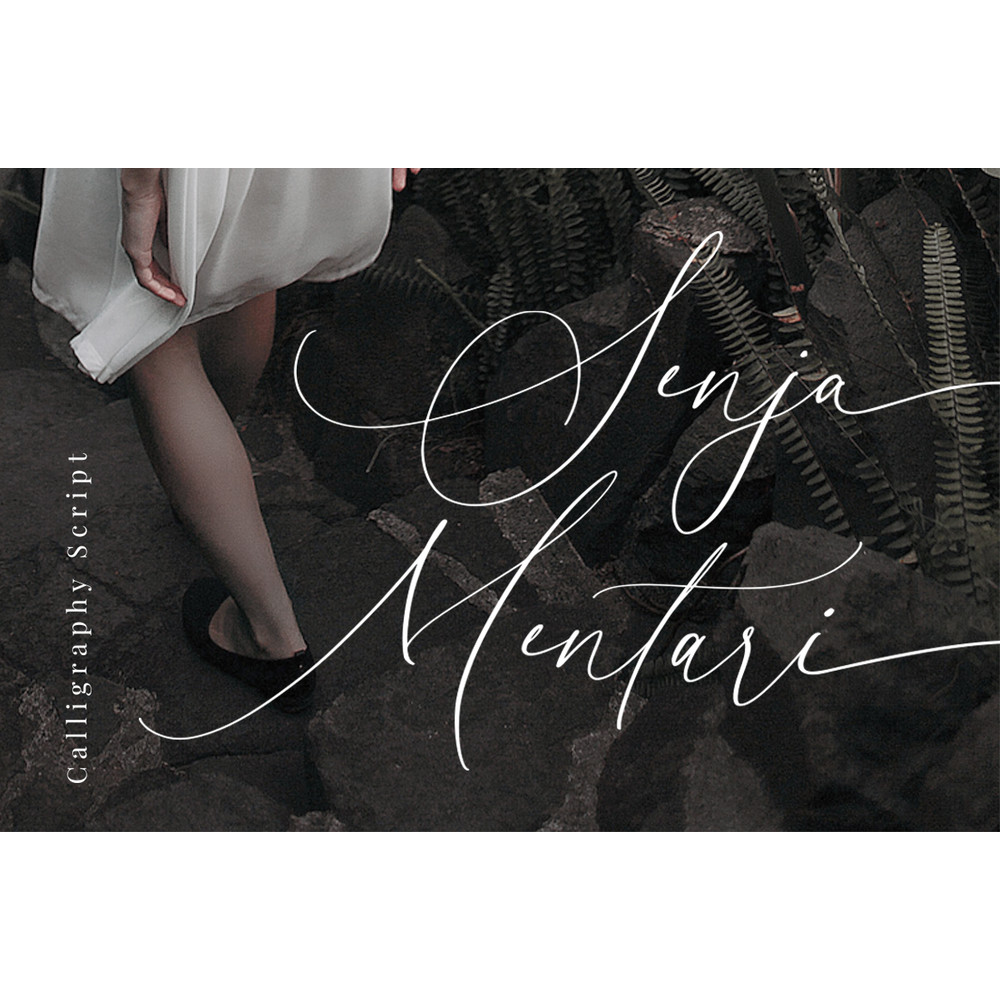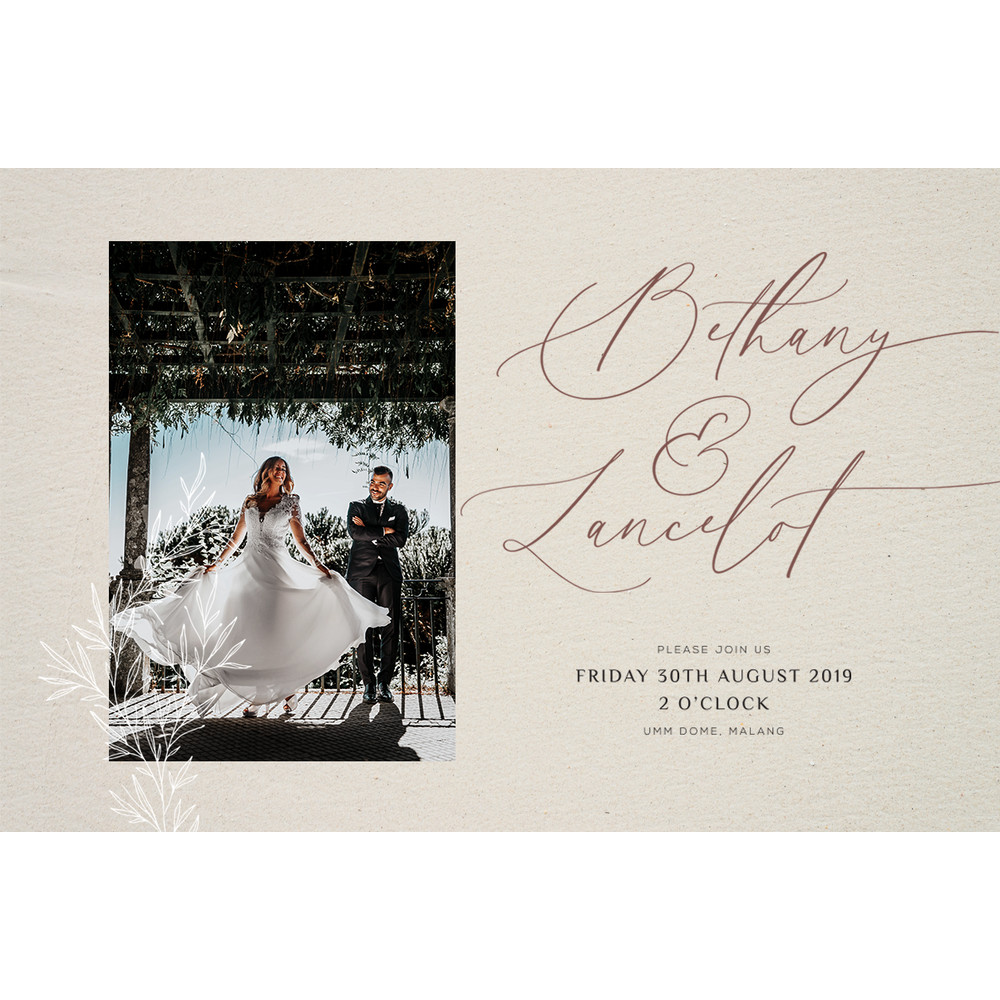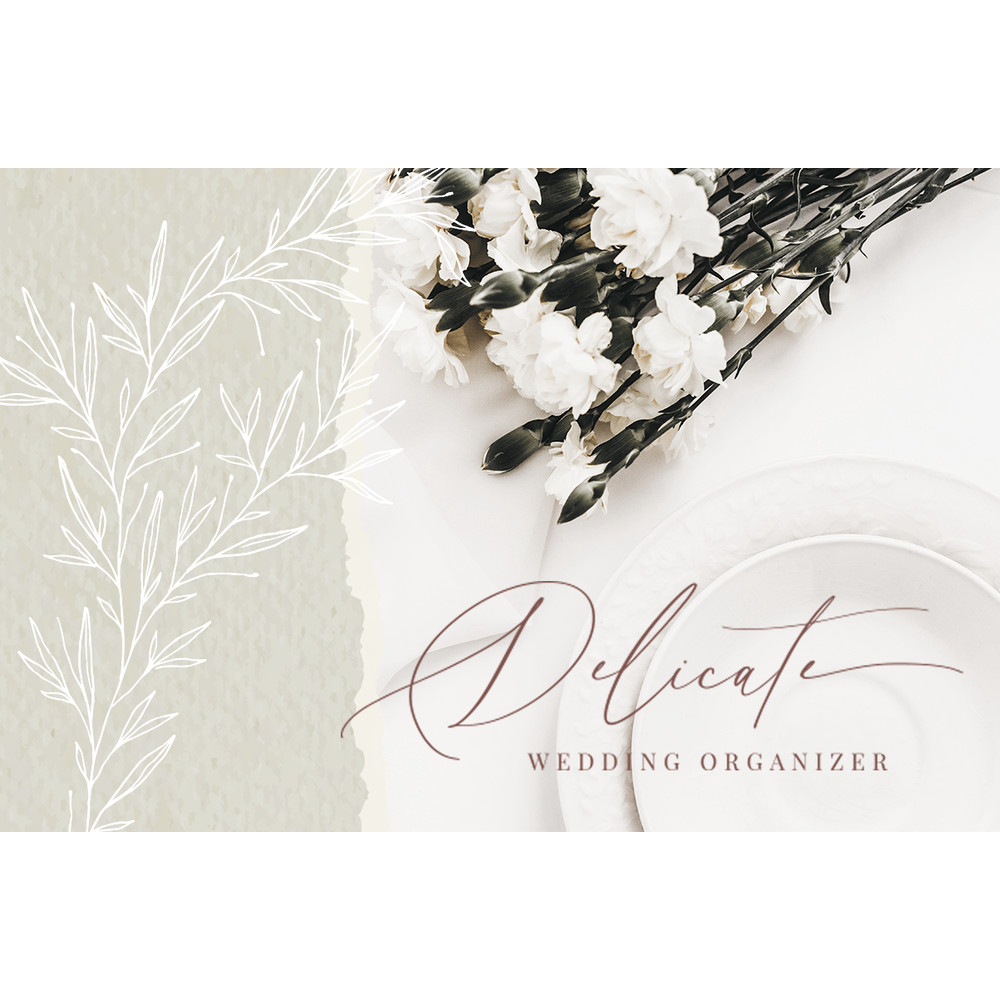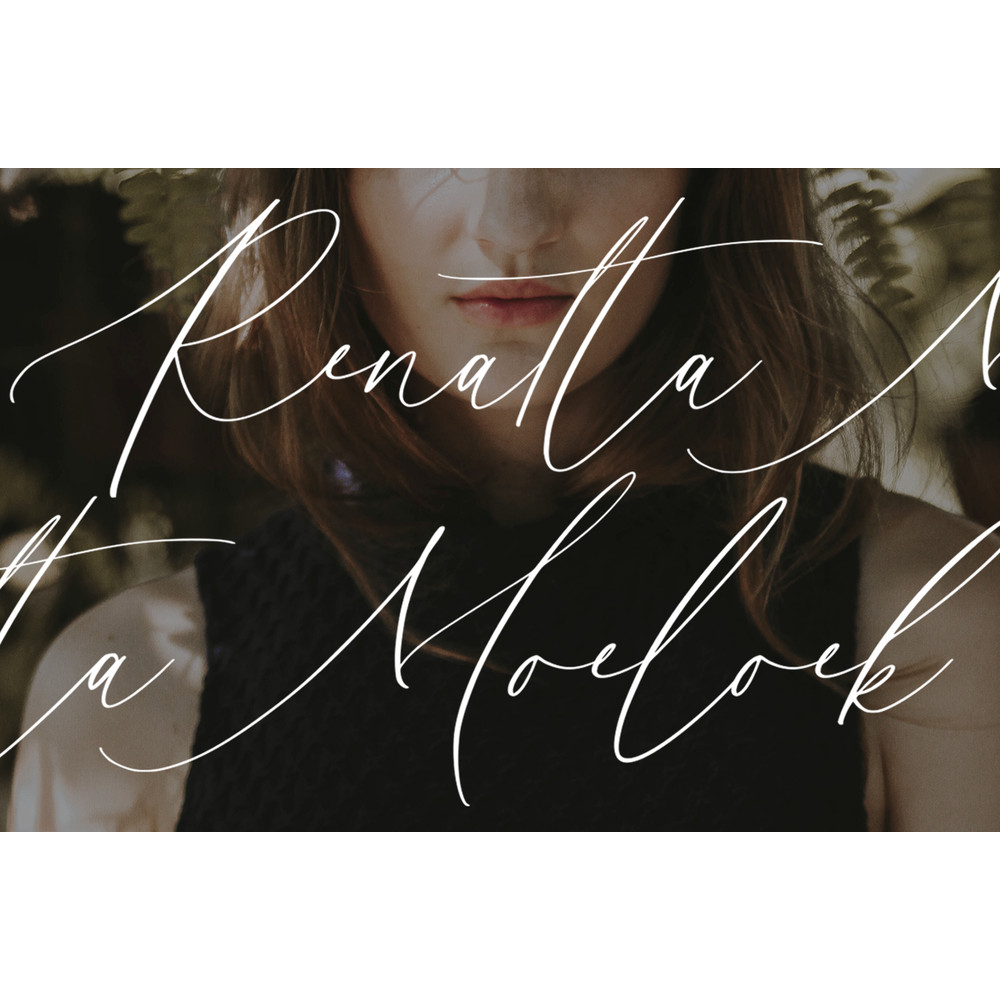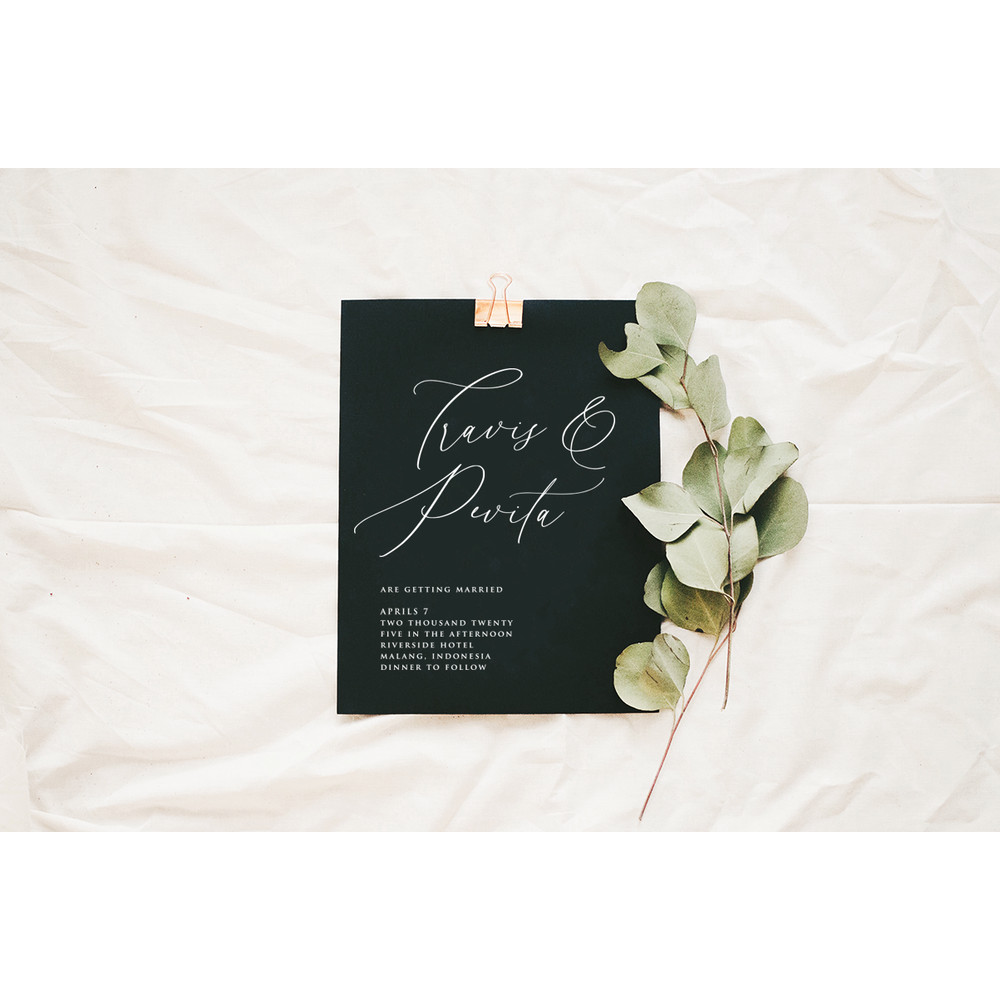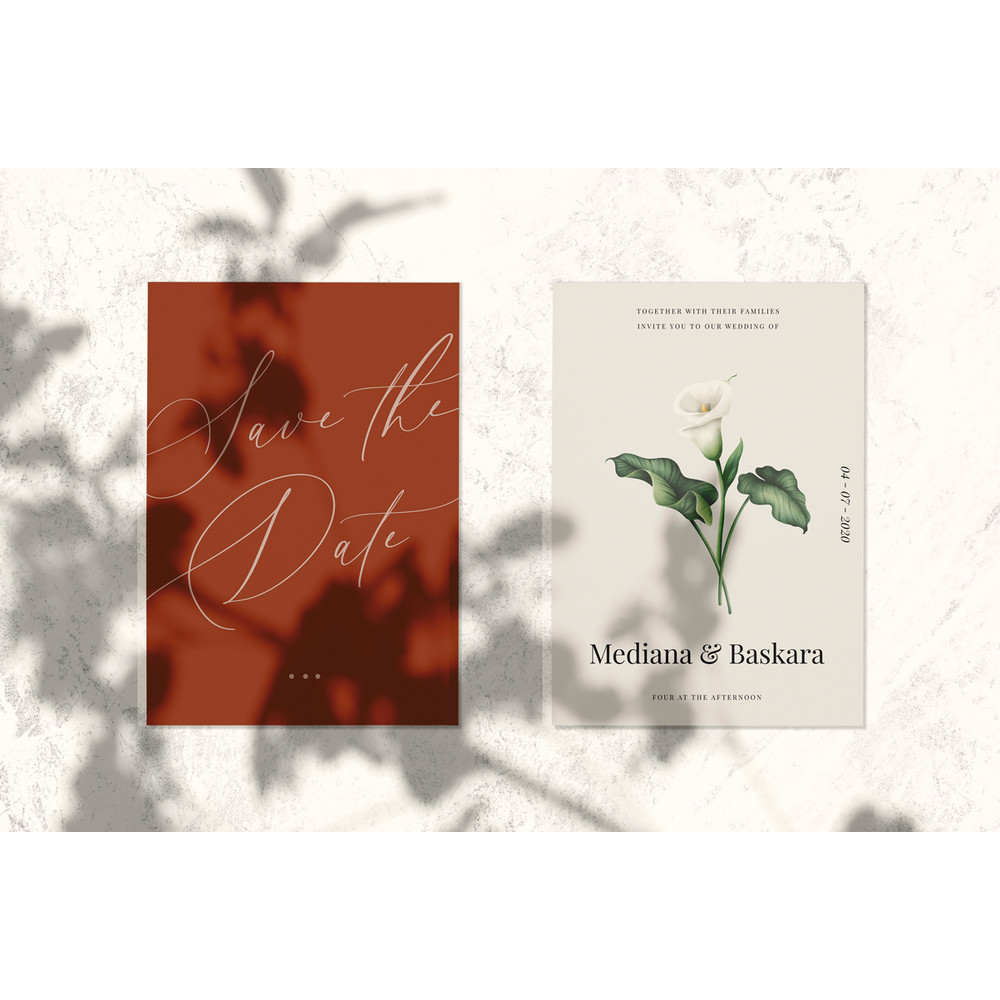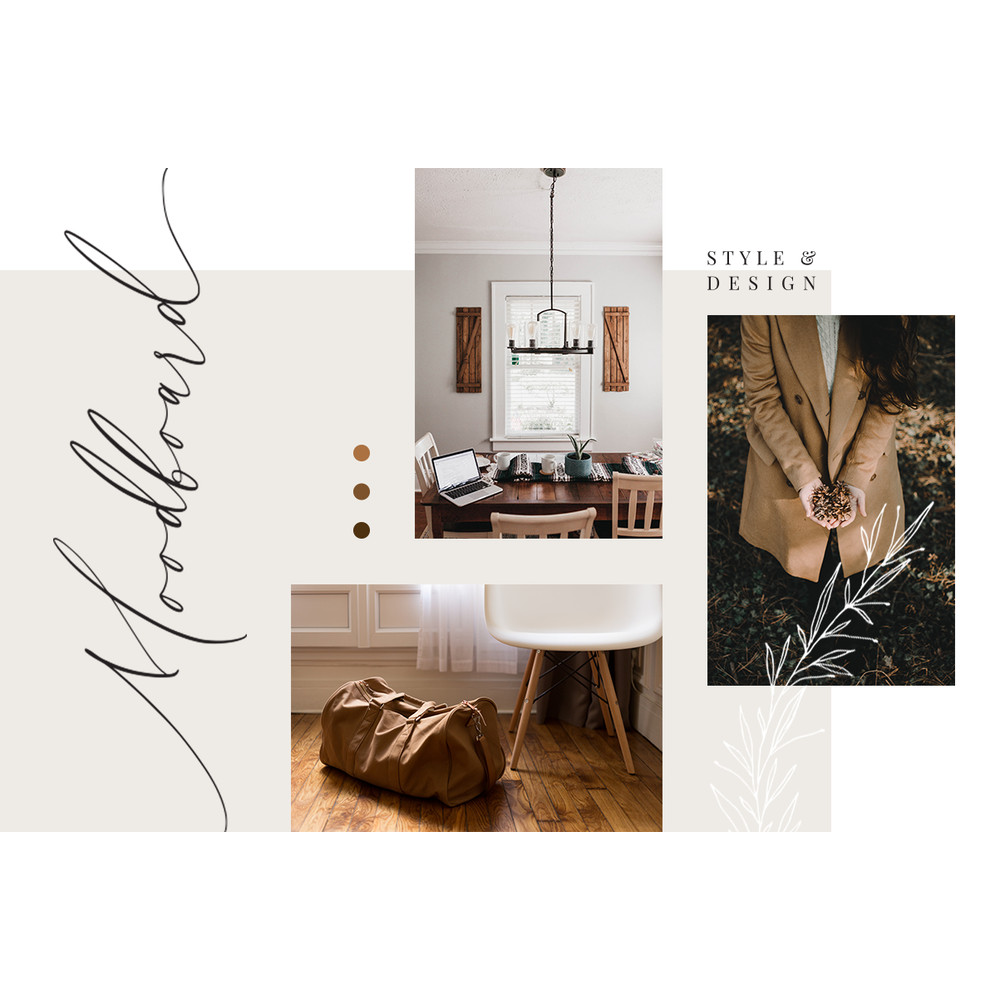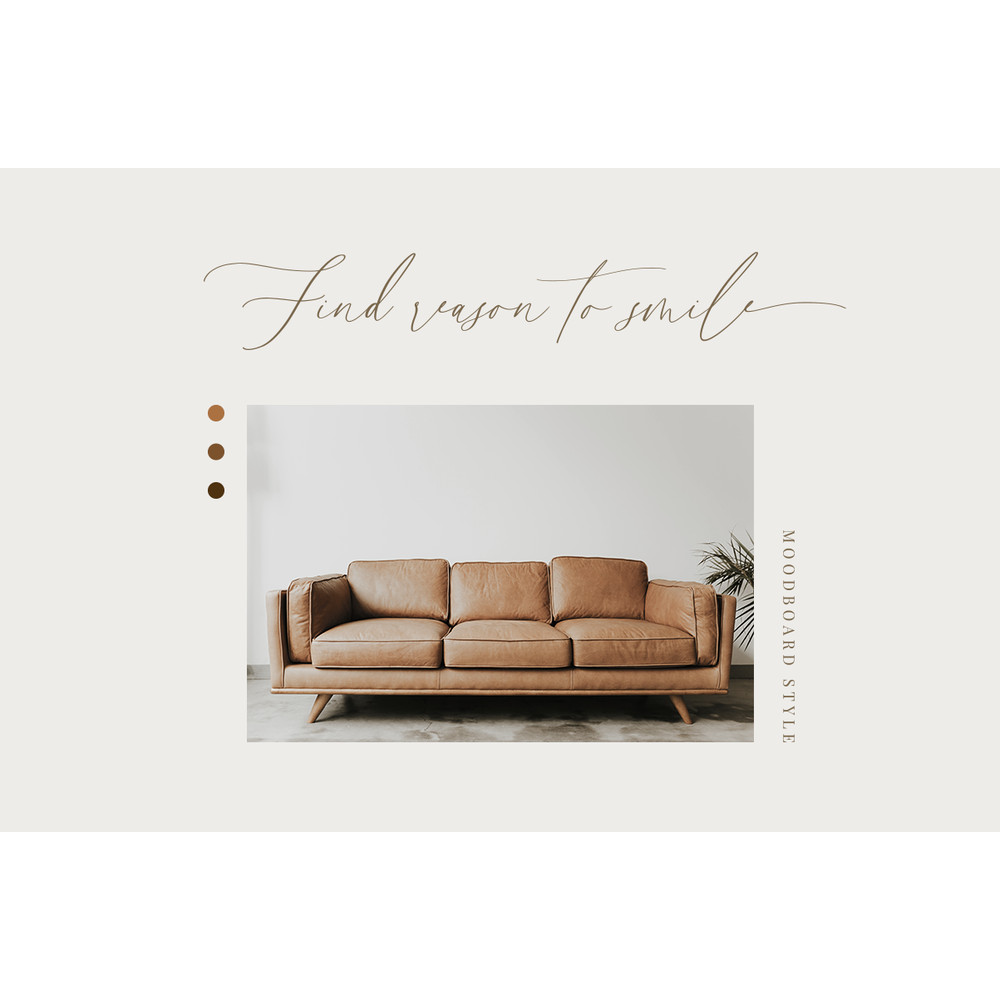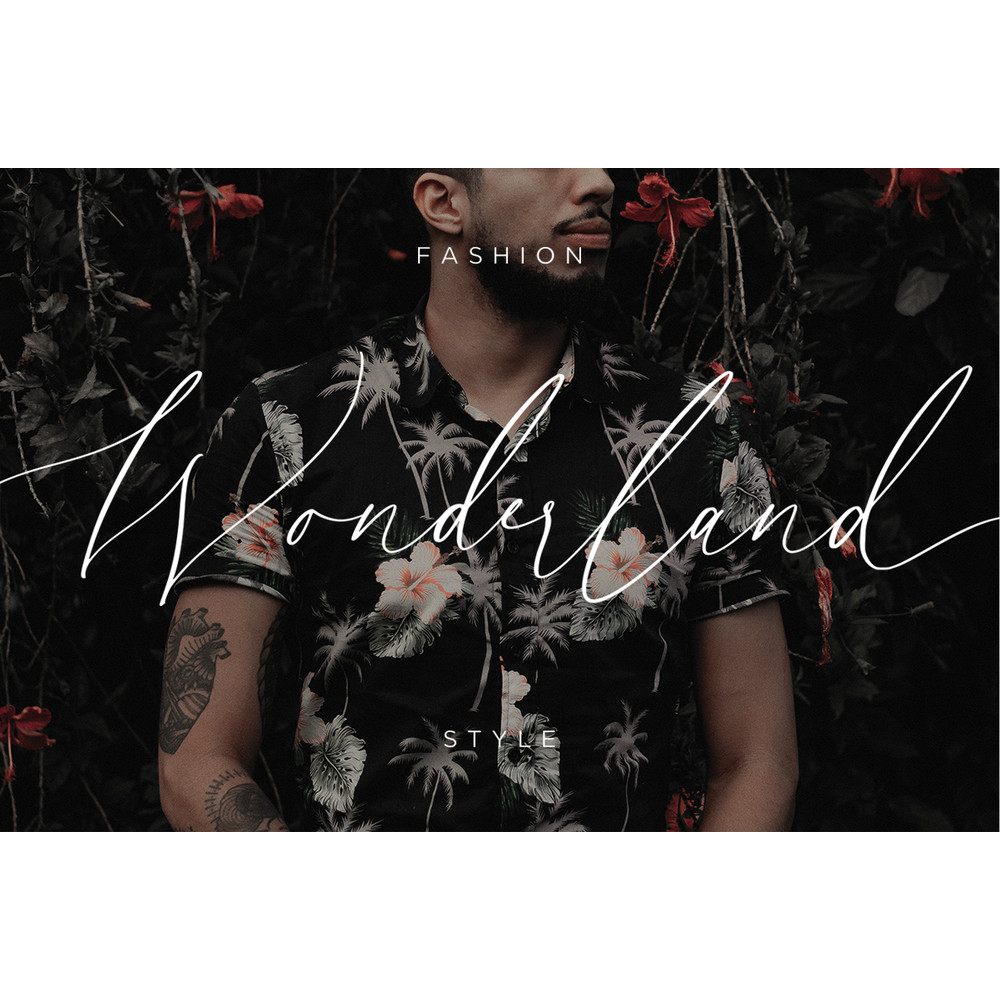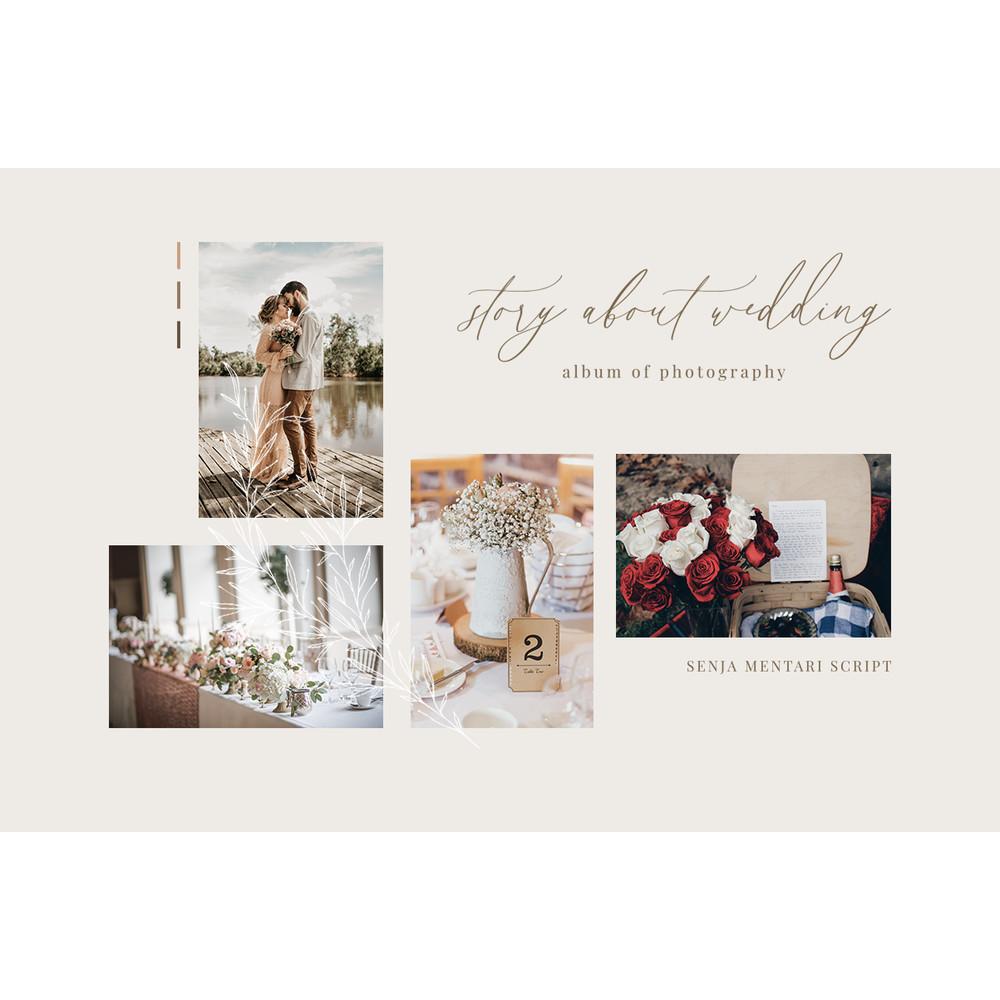
Senja Mentari is elegant modern calligraphy font inspired by delicate inky hand lettering, gorgeous wedding calligraphy and trending minimal branding designs.
This beautiful font pair is for those who are needing of elegance and stylish for their designs and particularly well suited for wedding invitations, cards and feminine branding.
– More than 100 beautiful swashes in this font